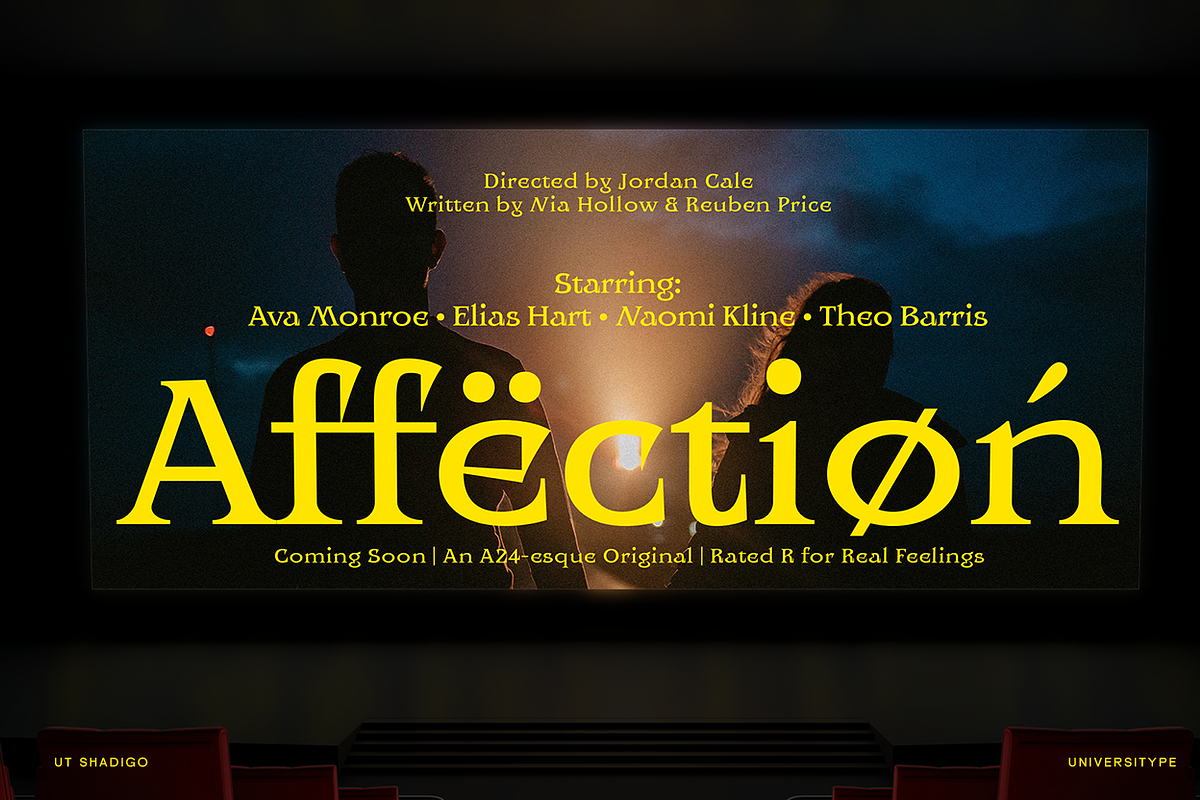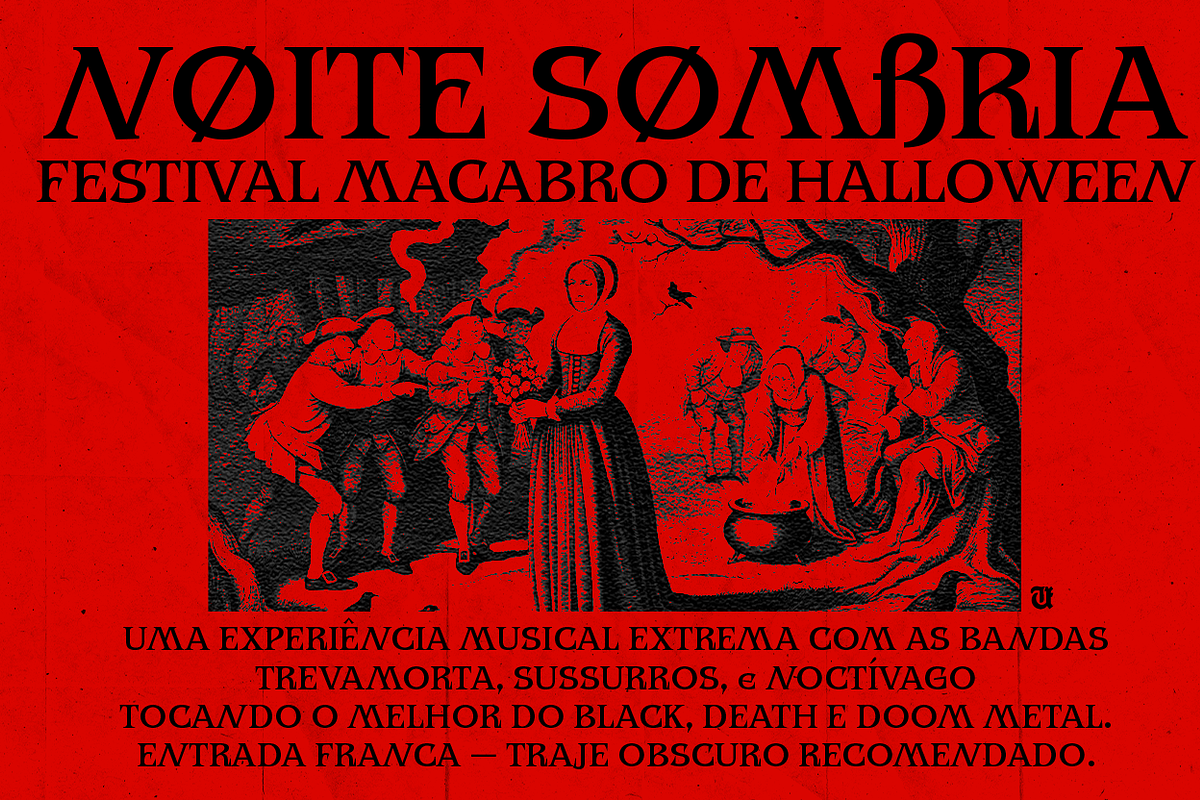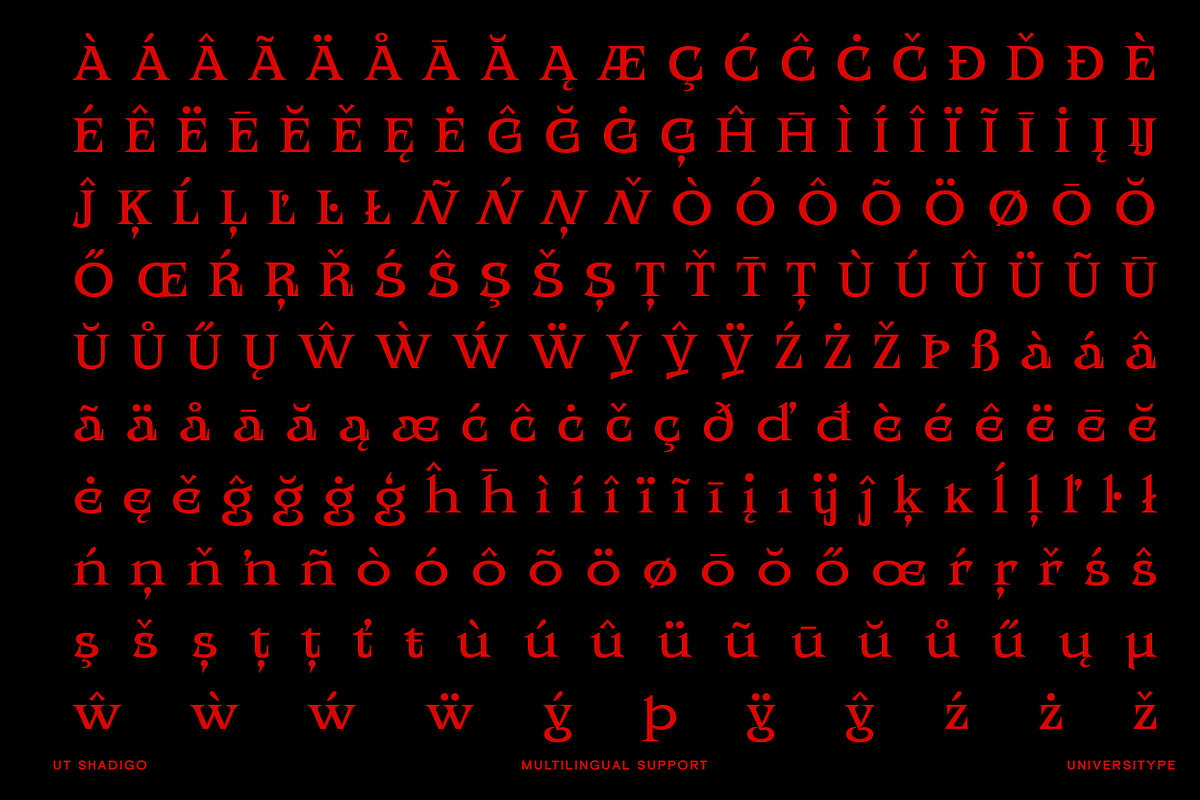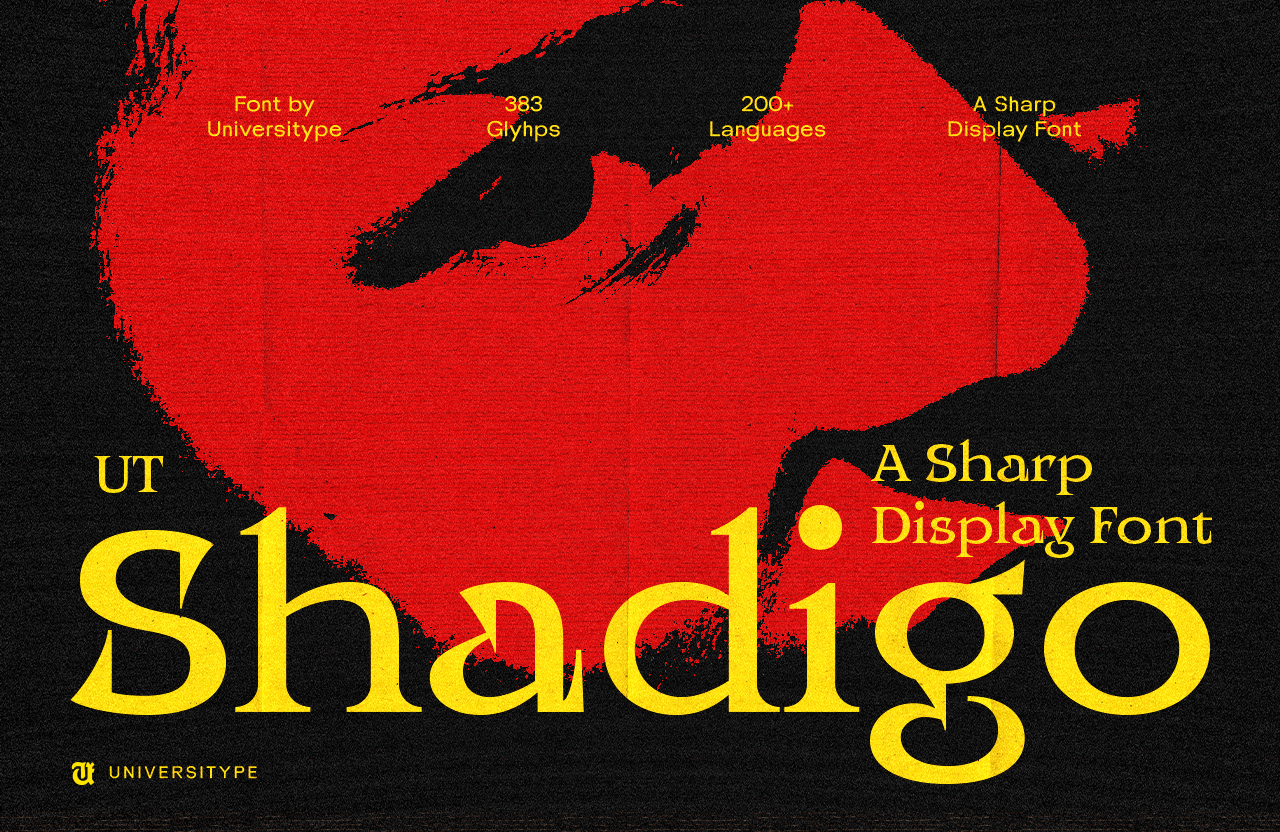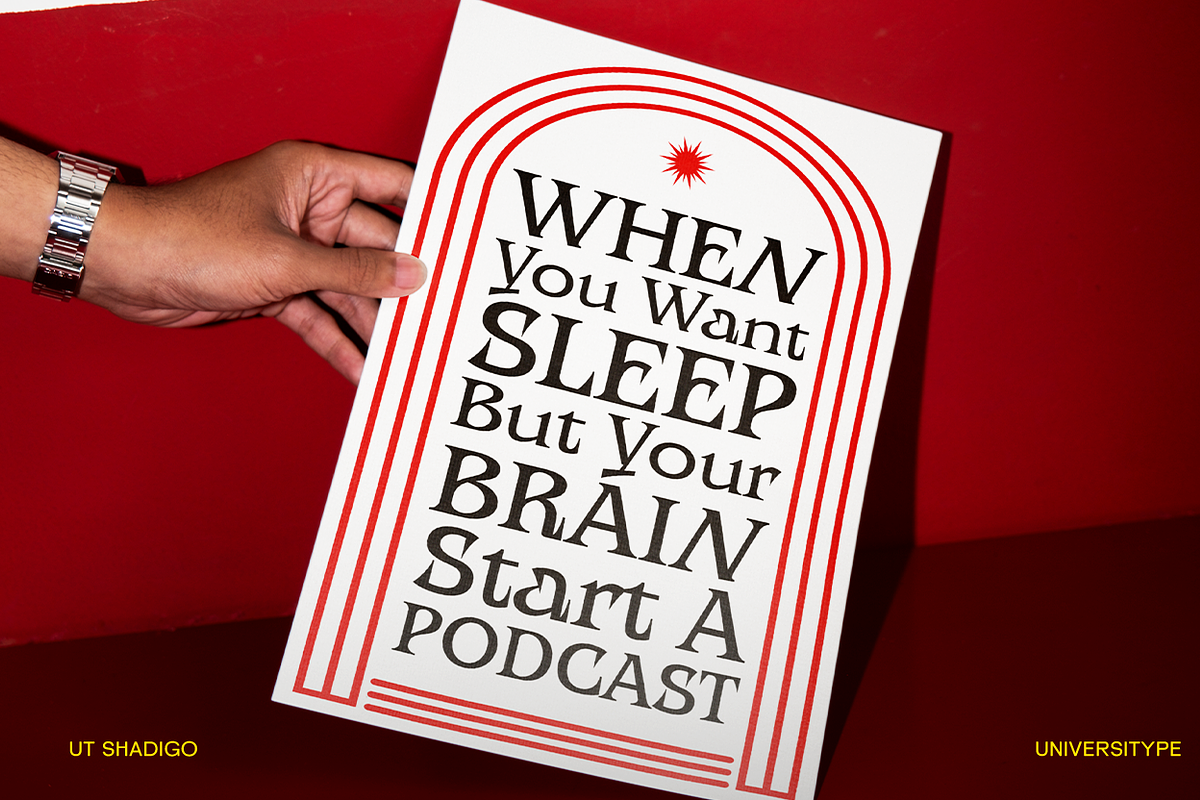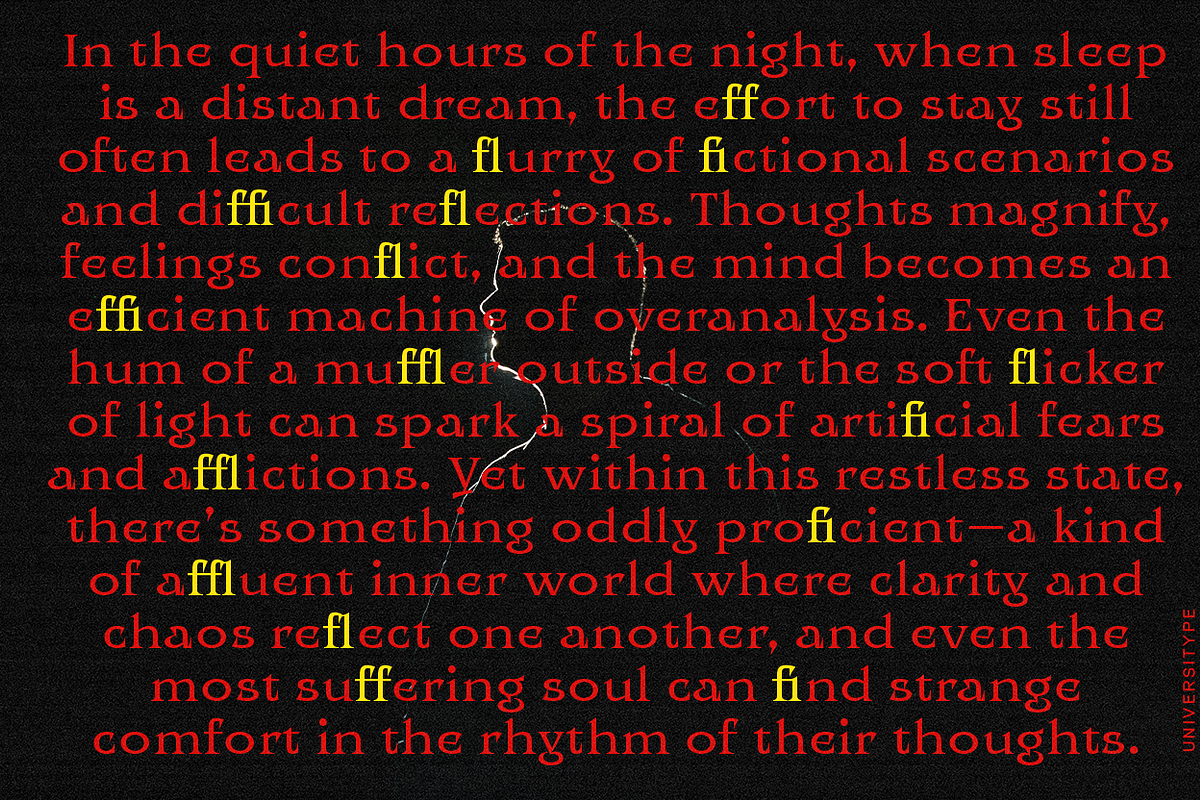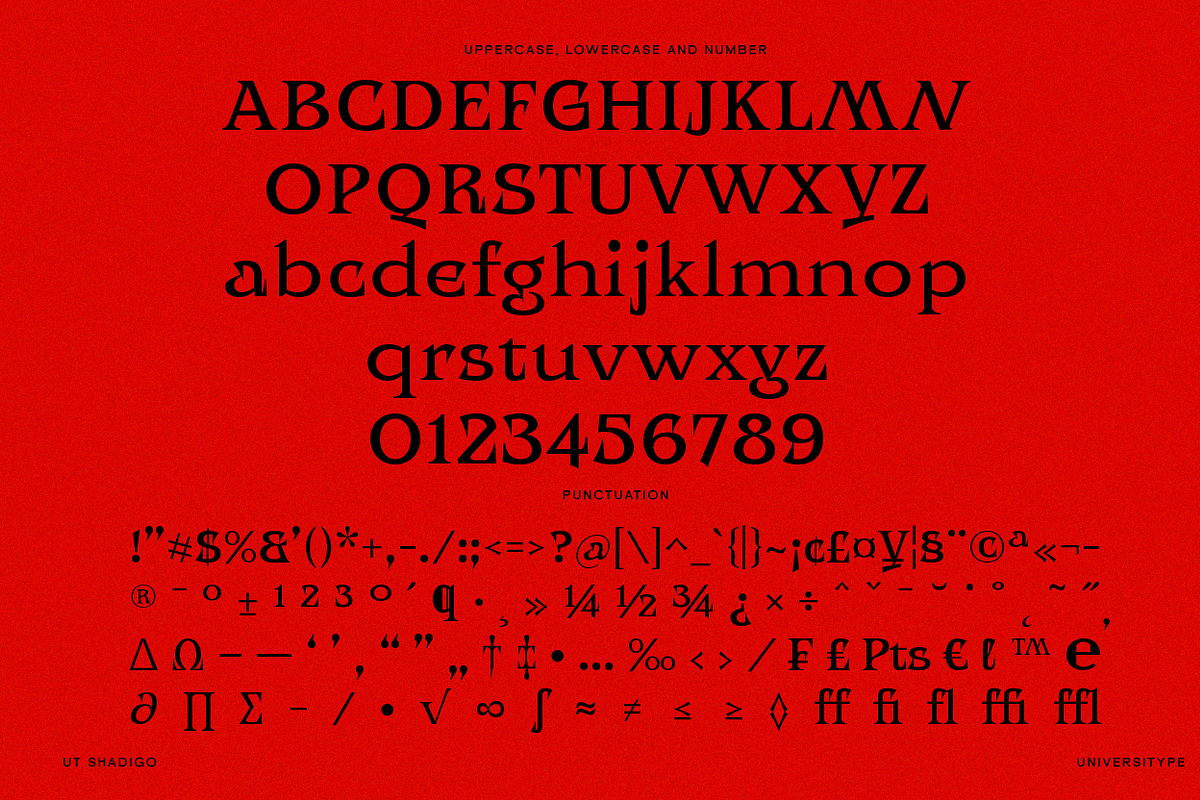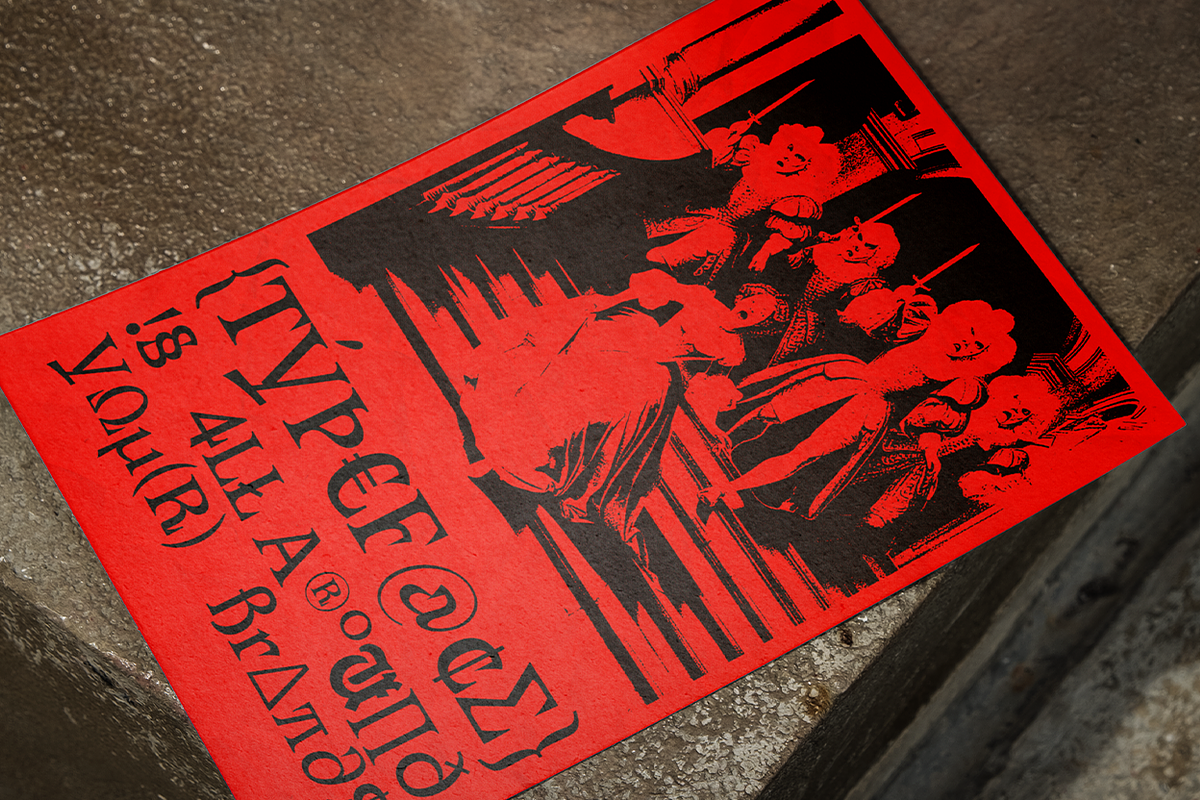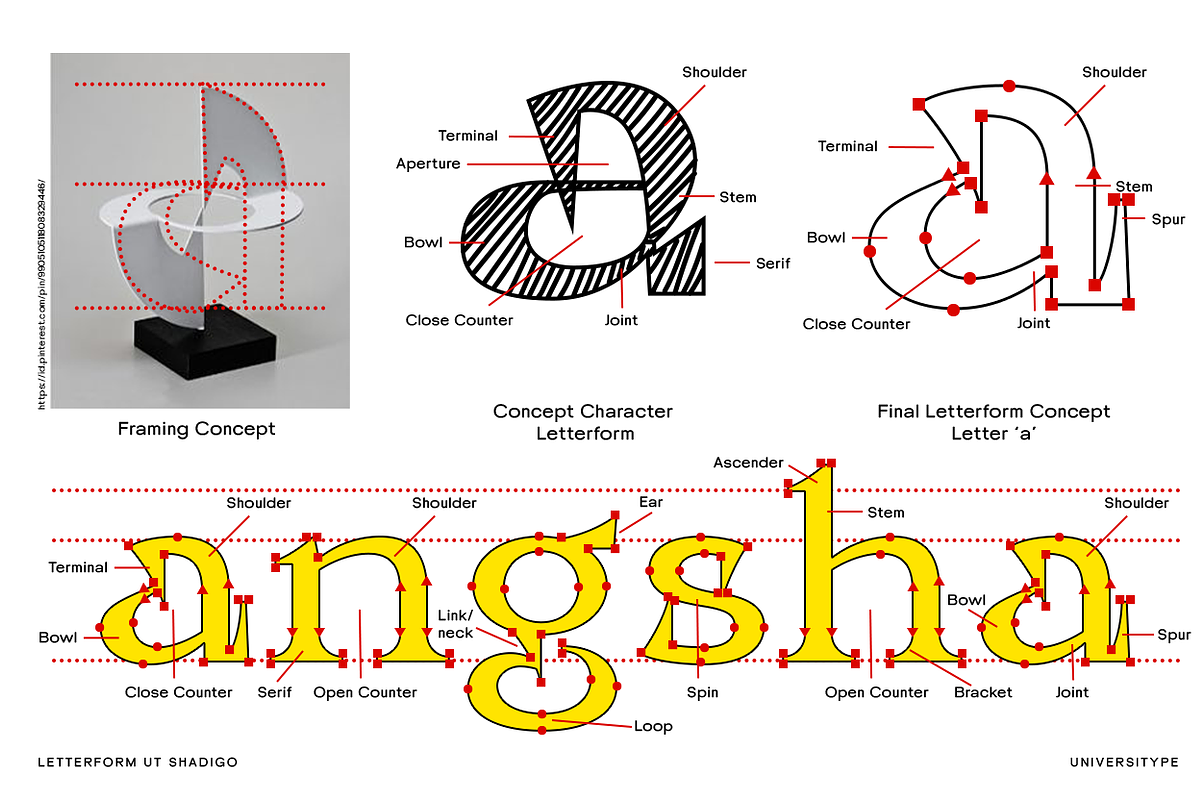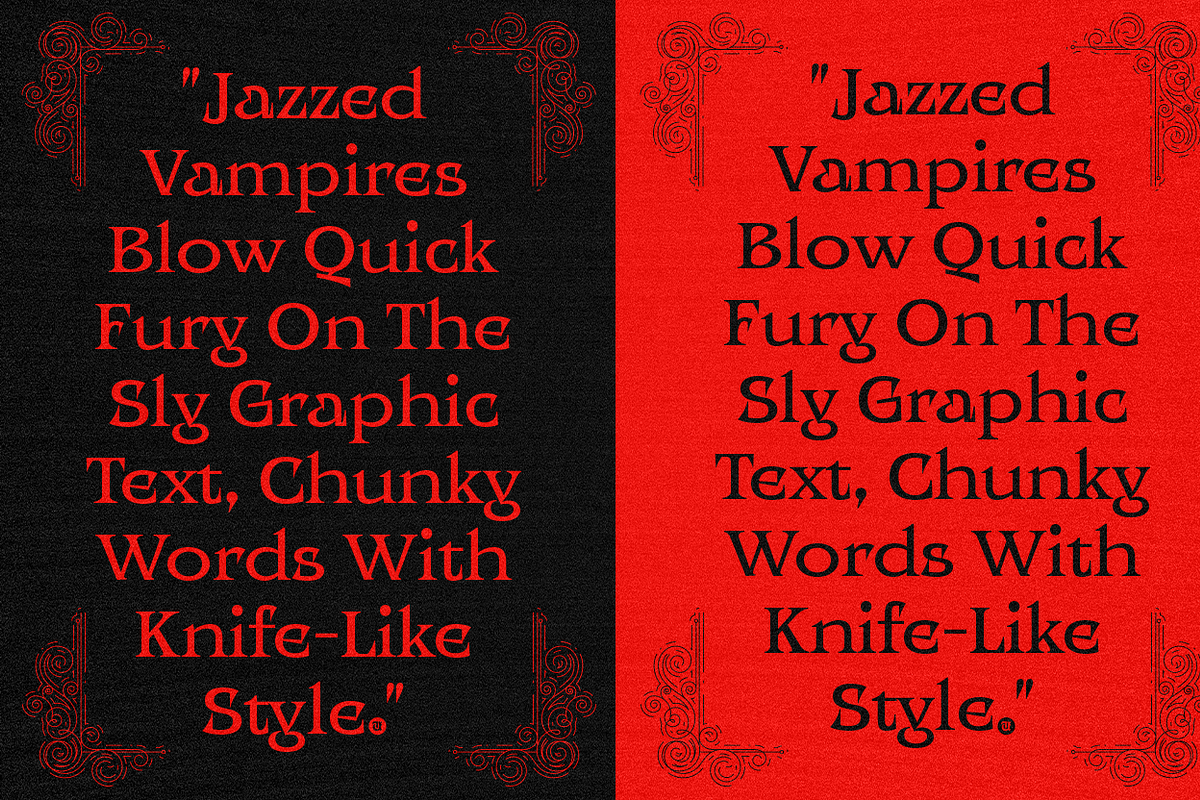
UT Shadigo - A Sharp Display Font
UT Shadigo is a sleek and sophisticated typeface designed to make a bold statement without compromising on elegance. This unique font combines sharp, bold strokes with subtle curves, creating a perfect balance of strength and softness. Inspired by modern architecture, twilight cityscapes, and the confidence of street fashion, UT Shadigo is perfect for creatives who want to inject attitude and sophistication into their designs.
Inspiration
UT Shadigo was born from the contrast of steel and shadow—hard lines softened by light. It was inspired by modern architecture, twilight cityscapes, and the confidence of street fashion. The goal was to create a font that feels powerful but never stiff. This blend of elegance and edge gives UT Shadigo its charm.
Technical Details
- Character Set: A–Z, a–z, numerals, punctuation, symbols
- Stylistic Alternates and Ligatures: Included for added customization
- Language Support: Supports Western and Central European languages